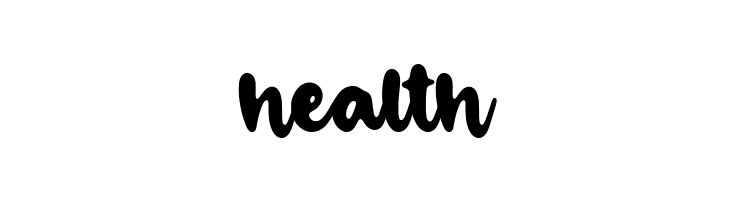
A bold, grunge-style font with jagged, irregular characters.
A whimsical collection of dynamic pictograms depicting motion and activity.
Energetic pictogram font with action-themed icons.
A decorative font with intricate floral designs forming each character.
A dramatic, edgy font with sharp, jagged edges and a distressed, hand-drawn appearance.
A bold, brushstroke-style font with a dynamic and artistic appearance.
A decorative font featuring intricate bird illustrations for each character.
A playful, heart-themed decorative font with bold strokes.
A playful, casual handwritten font with smooth, flowing curves.
A playful, handwritten font with a whimsical, cursive style.
A bold, playful font with bite-like cut-outs in each character.
A bold, hand-drawn font with textured, sketch-like details.
A bold, fragmented font with a textured, three-dimensional effect.
A bold, geometric sans-serif font with a strong, block-like appearance.
A bold, italicized font with a dynamic and energetic style.
A playful, bold font with rounded, bubbly characters and a hand-drawn style.
A playful, handwritten font with uniform strokes and rounded edges.
A graceful and sophisticated script font with flowing, interconnected letters.
A bold, graffiti-style font with angular, dynamic shapes.
A bold, textured font with a hand-drawn, distressed appearance.
A playful and casual handwritten font with smooth curves and a friendly feel.
A bold, italicized font with sharp angles and a dynamic, modern style.
A bold, energetic script font with a hand-drawn, dynamic style.
A bold, rounded font with a futuristic and robotic aesthetic.
A decorative, twig-like font with bold, playful strokes.
A bold, hand-drawn font with a playful and artistic style.
A bold, hand-drawn font with a playful and informal style.
A playful, icy-themed font with bold, rounded letters adorned with icicle drips.